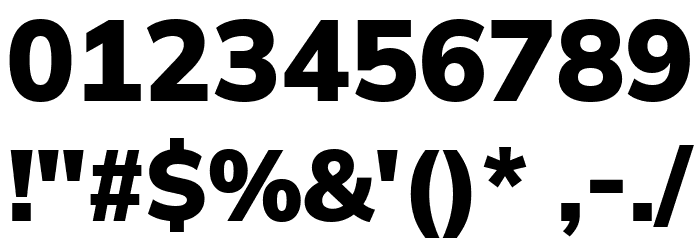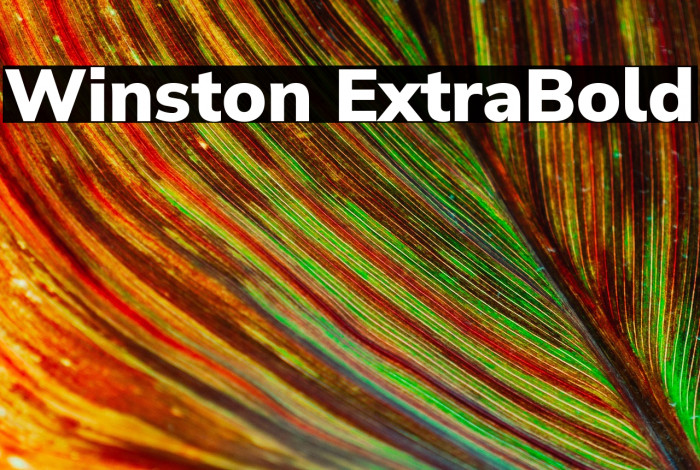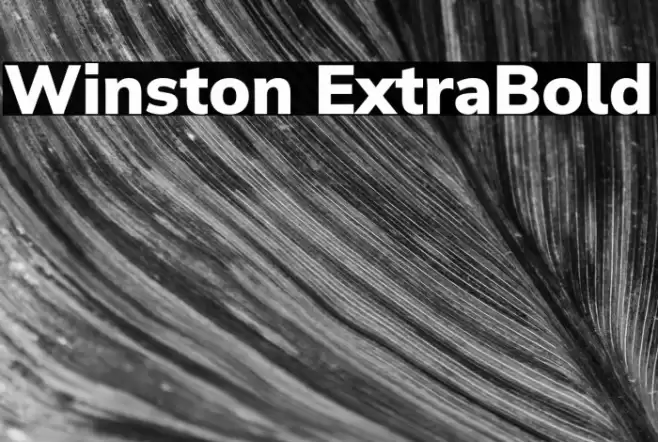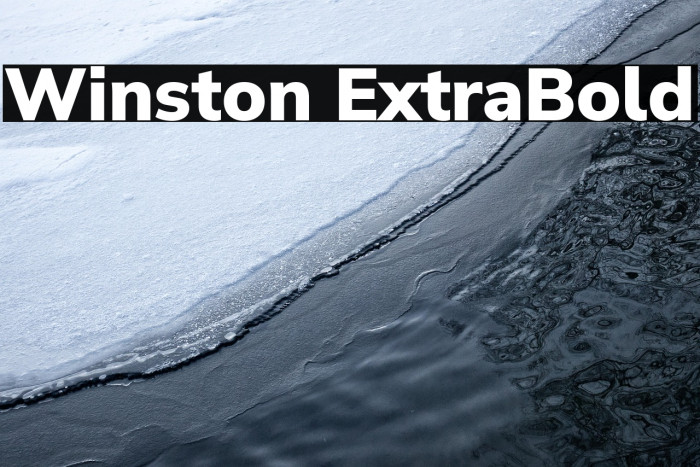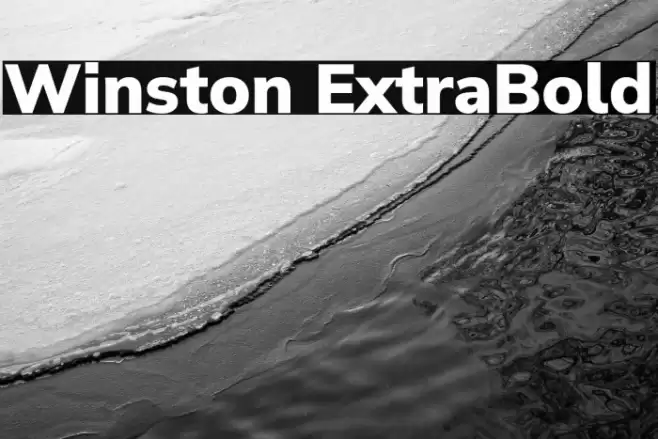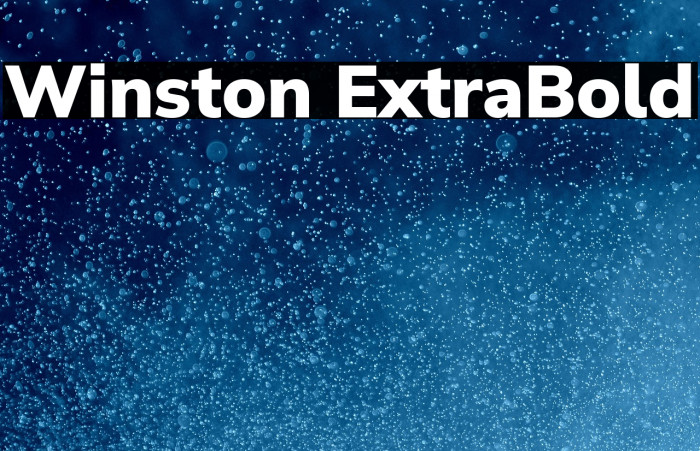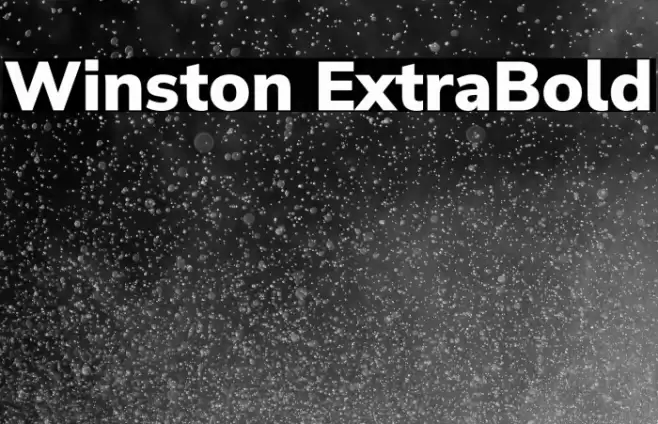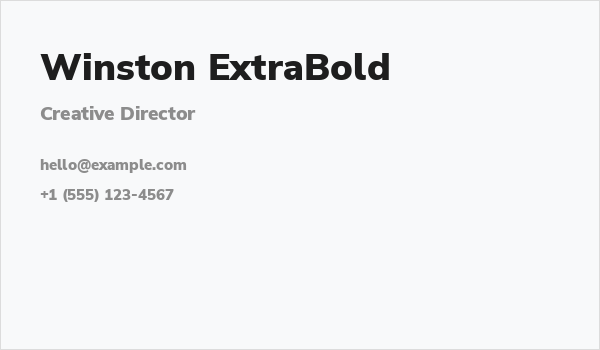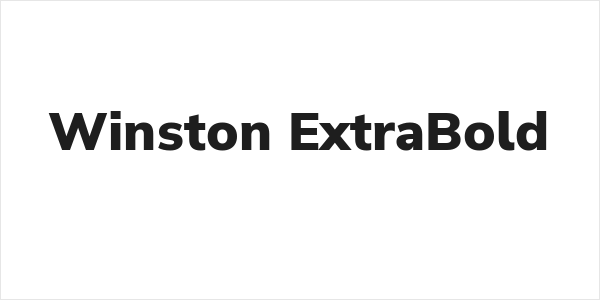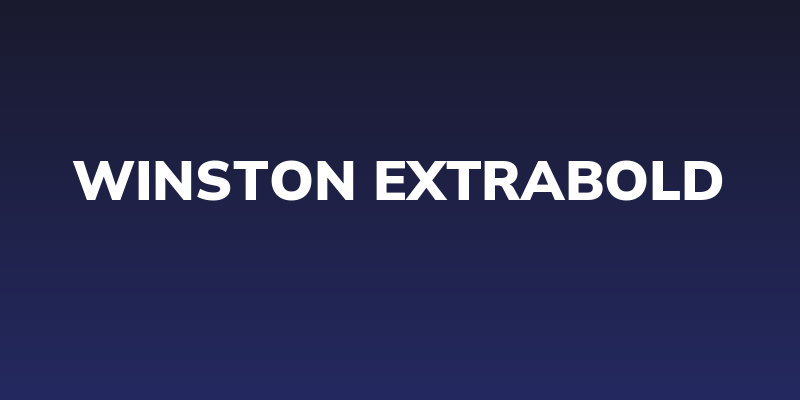
Winston ExtraBold Font
Winston ExtraBold Description
This font is a bold and impactful sans-serif typeface, characterized by its strong and clean lines. The uppercase and lowercase letters are well-proportioned, with a consistent stroke width that conveys a sense of stability and modernity. The numerals are clear and easily distinguishable, making them suitable for various applications. Special characters are designed with the same boldness, ensuring uniformity across all glyphs. The overall appearance is robust and confident, making it ideal for attention-grabbing headlines and branding materials.
| Proposed Projects | Ideal for branding, advertising, headlines, and any project requiring a strong visual impact. |